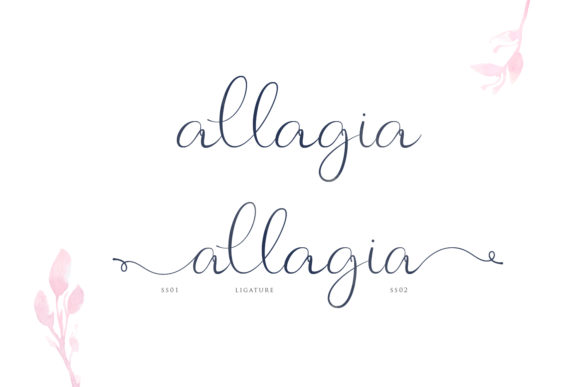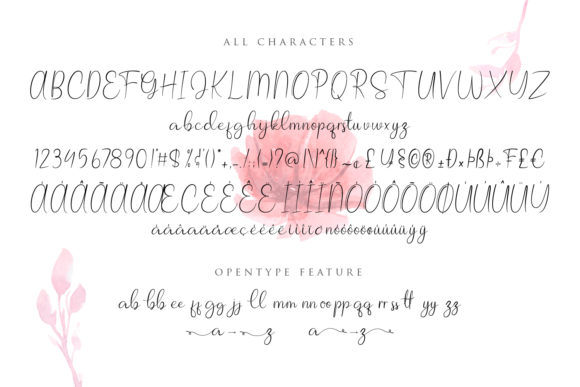
The Timeless Elegance of Allagia Font: Elevate Your Design Projects with a Personal Touch
In the world of typography, few fonts manage to strike a balance between classic sophistication and personal warmth. The lovely Allagia font is a true stand-out, boasting a very natural feel that is perfect for any design project that needs an elevated, classic, and personal touch. Whether you’re a designer, crafter, or simply a typography enthusiast, Allagia font is sure to captivate you with its unique charm and versatility.
The Origins of Allagia Font
While the history of Allagia font may not be well-documented, its distinctive characteristics and aesthetic appeal have made it a favorite among designers and crafters. This elegant font is believed to have been crafted with the intention of evoking a sense of nostalgia and warmth, making it an excellent choice for projects that require a personal touch.
What Makes Allagia Font So Special?
So, what sets Allagia font apart from other fonts in the world of typography? Here are a few key features that make it a standout:
- Natural Feel: Allagia font has a distinctly natural feel that makes it perfect for designs that require a personal, human touch. Its organic curves and subtle imperfections give it a warm, inviting appearance that is hard to resist.
- Classic Sophistication: Despite its natural feel, Allagia font exudes classic sophistication and elegance. Its refined lines and proportions make it an excellent choice for high-end designs, luxury brands, and sophisticated craft projects.
- Versatility: Allagia font is incredibly versatile, making it suitable for a wide range of design projects. From wedding invitations and stationery to branding, packaging, and digital designs, this font can adapt to any style or theme.
Using Allagia Font in Your Design Projects
Allagia font is an excellent choice for a variety of design projects, including:
- Wedding Invitations and Stationery: Add a touch of elegance and romance to your wedding invitations, stationery, and other paper goods with Allagia font.
- Branding and Packaging: Use Allagia font to create sophisticated brand identities and packaging designs that exude luxury and refinement.
- Digital Designs: Allagia font is also perfect for digital designs, including social media graphics, blog headers, and website designs.
- Crafting and Scrapbooking: Add a personal touch to your crafting and scrapbooking projects with Allagia font, perfect for journaling, titles, and other creative elements.
Tips for Pairing Allagia Font with Other Fonts
To get the most out of Allagia font, consider pairing it with other fonts that complement its classic, elegant style. Here are a few pairing suggestions:
- Serif Fonts: Pair Allagia font with other serif fonts, such as Georgia or Times New Roman, for a sophisticated, traditional look.
- Script Fonts: Combine Allagia font with elegant script fonts, such as Pacifico or Great Vibes, for a romantic, whimsical feel.
- Sans-Serif Fonts: Use Allagia font alongside sans-serif fonts, such as Arial or Helvetica, for a modern, clean contrast.
The Allagia font is a true gem in the world of typography, offering a unique blend of classic sophistication and natural warmth. Its versatility, elegance, and personal touch make it an excellent choice for designers, crafters, and anyone looking to elevate their design projects. Whether you’re working on a wedding invitation, branding project, or digital design, Allagia font is sure to bring a touch of timeless elegance to your work.